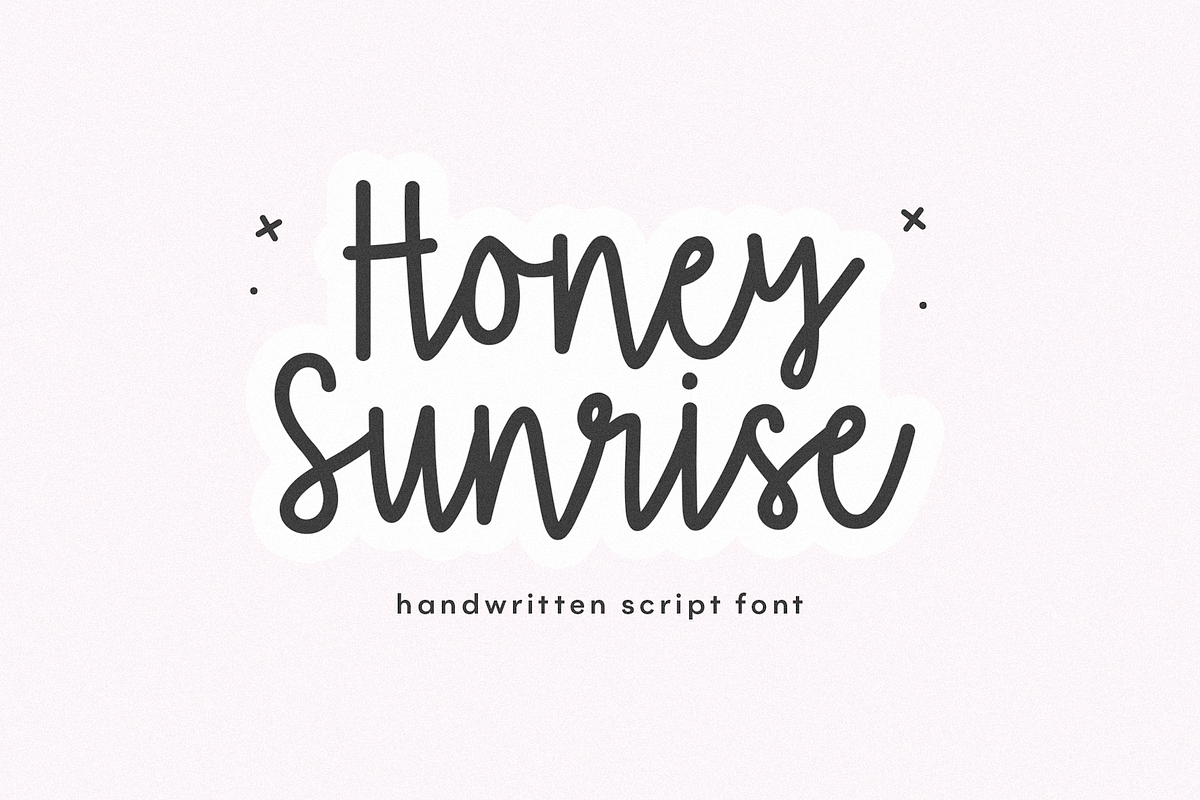
Please note, you must purchase this font for commercial use. However, you can easily download Honey Sunrise Script Font Free Download for personal use and testing purposes. Honey Sunrise Script Font is a beautiful and elegant handwritten script typeface that exudes warmth and sophistication. Perfect for branding, invitations, logos, and creative projects, this font features smooth, flowing strokes and a charming, personal touch. Whether you're designing a wedding invitation, a stylish logo, or a creative marketing piece, Honey Sunrise Script Font Free Download adds a soft, refined flair to your typography. Download Honey Sunrise Script Font Free Download today and explore its potential before opting for a commercial license.